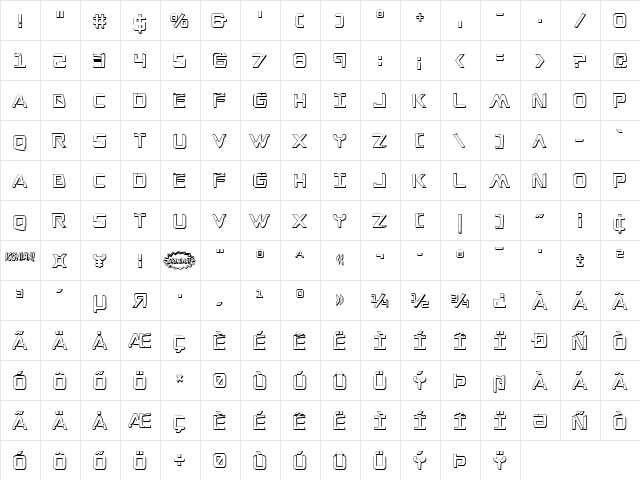
War Eagle 3D Condensed Condensed
Design Context for War Eagle 3D Condensed Typeface
War Eagle 3D Condensed is a composed and adaptable typeface that performs quietly and consistently across a wide range of design contexts. The condensed width makes it efficient for tight spaces without sacrificing legibility.